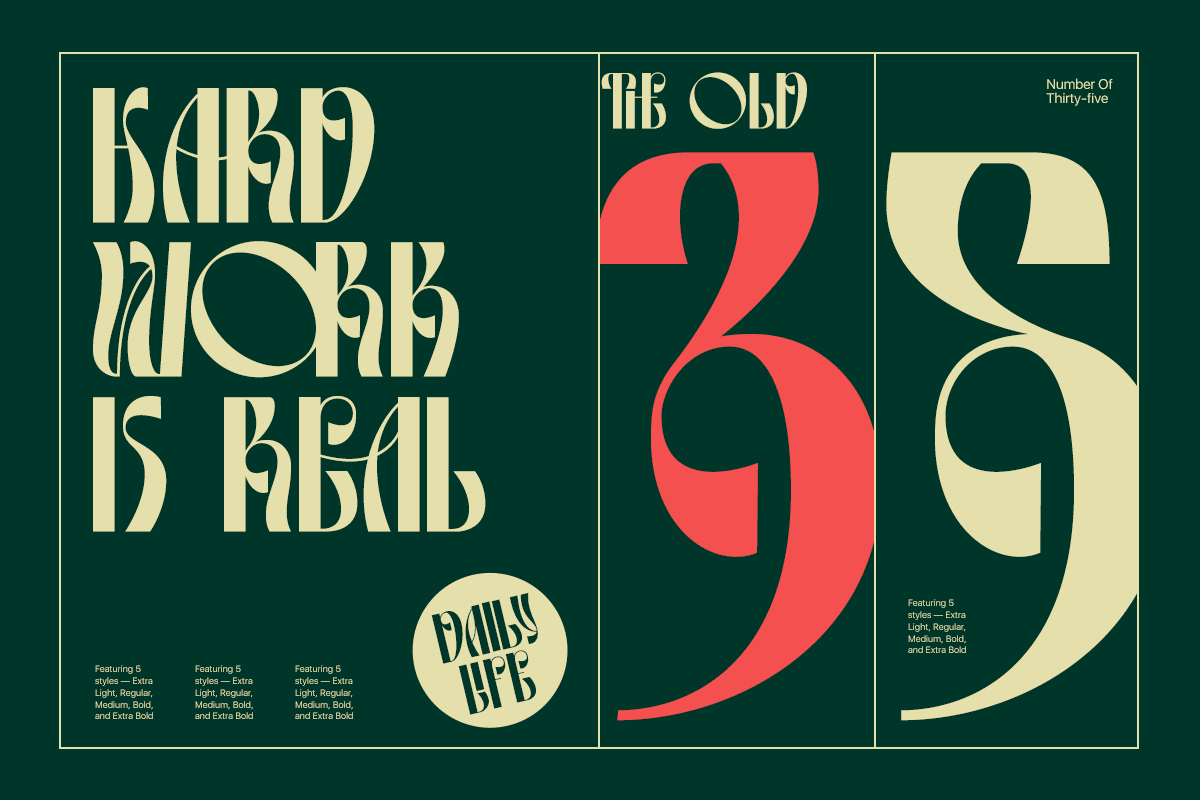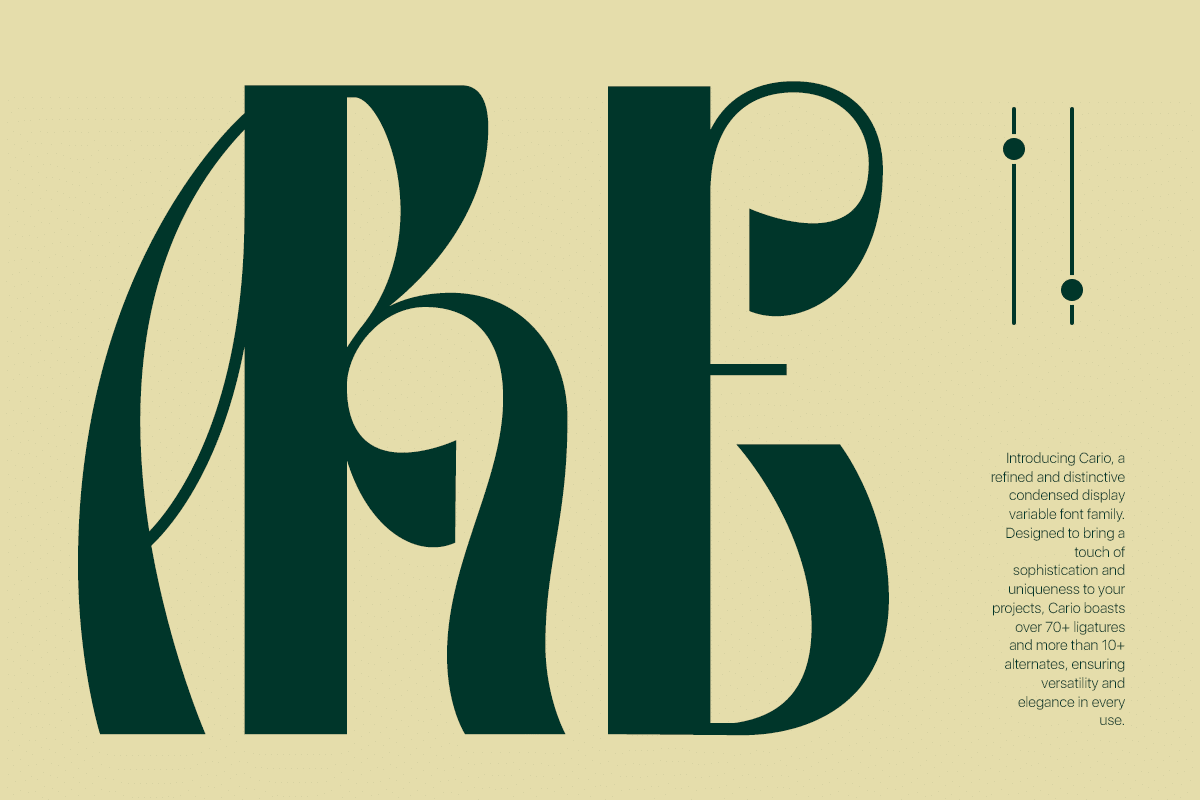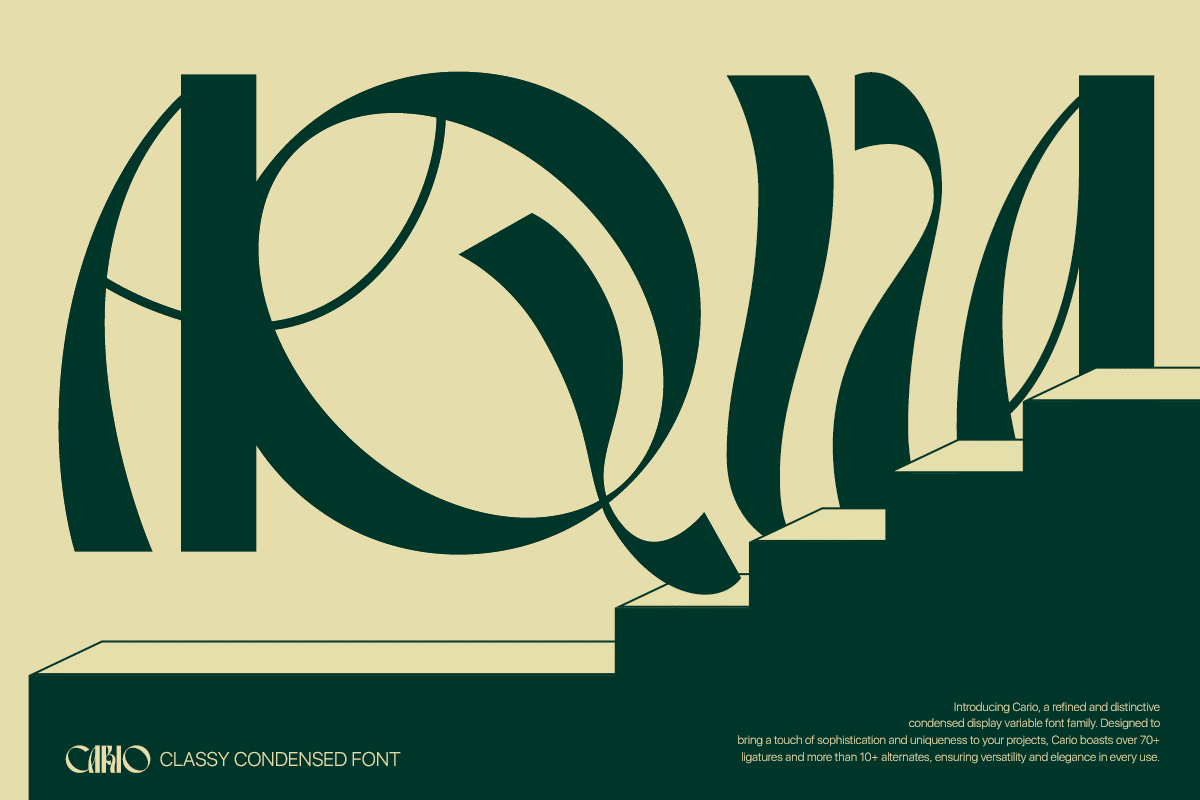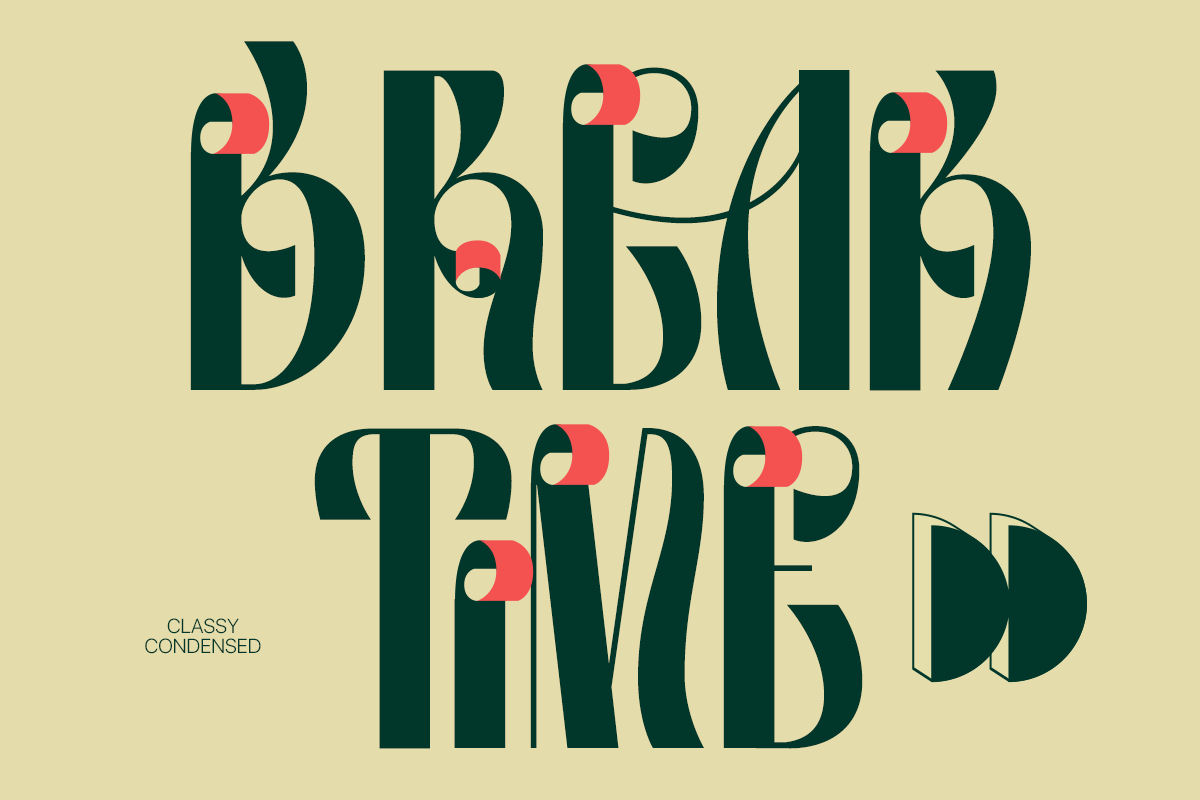
Cario – Luxury Bold Display Font
Introducing Cario – Strong Modern Display, a bold serif display typeface designed by Dharmas Studio. Featuring the Bold style, this version delivers confident curves and powerful contrast—perfect for attention-grabbing headlines and editorial design.
Cario Bold brings a modern flair to classic serif forms, making it ideal for designers who want their typography to feel both elegant and assertive. Paired with 85+ ligatures and alternates, this font gives you the creative flexibility to design standout visuals with refined detail.
- 1 Weight: Bold
- 85+ Unique Alternates and Ligatures
- Letters, numbers, symbols, punctuation, special alternates